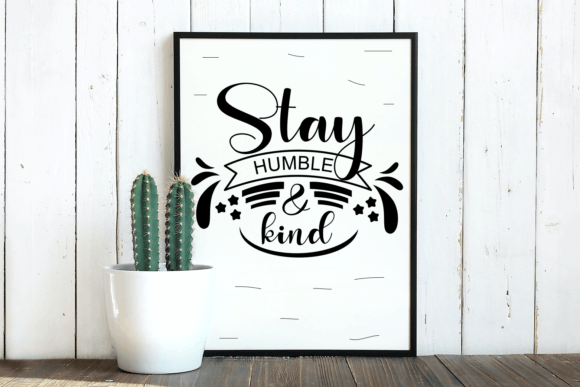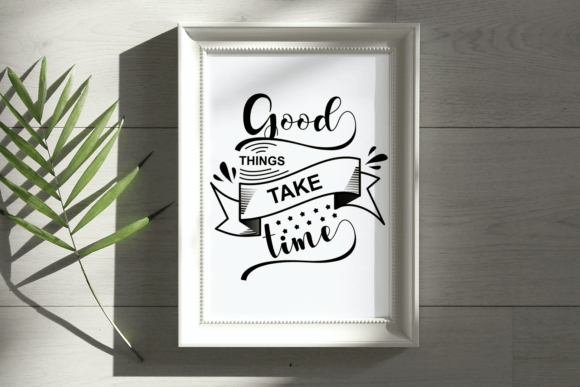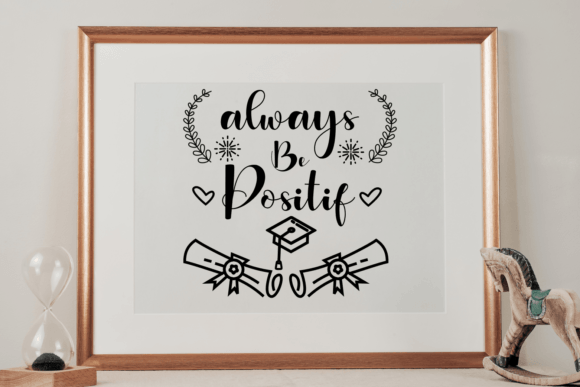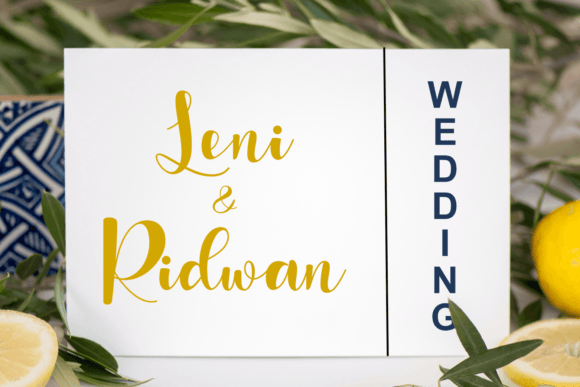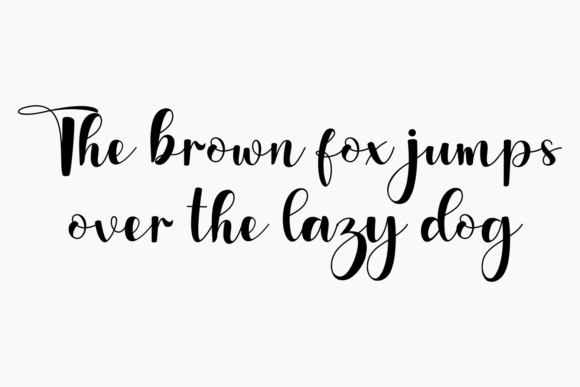
The Perfect Font to Celebrate Life’s Milestones
As a designer, there’s nothing quite like the thrill of bringing a project to life. You’ve poured your heart and soul into it, and it’s finally time to share it with the world. But what makes the difference between a good design and a great one? For us, it’s all about the little details – like the perfect font. That’s why we’re excited to introduce you to the Graduation Font, a beautiful and elegant calligraphy typeface that’s sure to add a touch of luxury to any design project.
With its romantic and sweet characters that dance along the baseline, the Graduation Font is the perfect choice for celebrating life’s milestones – from graduations to weddings and beyond. And with its PUA encoding, you’ll have access to all the amazing glyphs and ligatures or swashes you need to make your design truly special. Whether you’re a seasoned pro or just starting out, this font is sure to be a valuable addition to your toolkit.
Key Features of Graduation Font
- Font Family: Graduation is a script font family, designed to resemble handwritten text. It is available in multiple weights, from Light to Black.
- Size: Graduation Font has a large character set, with over 1,000 glyphs, including Latin, Cyrillic, and Greek alphabets, as well as punctuation and symbols.
- Unique Characteristics: Graduation Font features a unique, cursive design with subtle flourishes and connections between letters, giving it a distinctive and elegant look.
Graduation Font Review
Overall, I’d say the Graduation Font is a decent choice for celebratory occasions, but it has its limitations.
- It’s perfect for graduations, proms, and other milestone events.
- The font is easy to read, even at larger sizes.
- The cursive flair adds a touch of elegance and sophistication.
- The font is a bit too flashy and may not be suitable for more formal or professional applications.
- It may not be the best choice for body text, as it can be a bit too ornate and distracting.
- The font is not particularly versatile, and its uses are limited to celebratory occasions.
While the Graduation Font is not the most versatile or sophisticated font out there, it’s perfect for its intended purpose. If you’re looking for a font to celebrate a milestone event, the Graduation Font is a solid choice. Just be sure to use it in the right context and don’t overdo it.
Graduation Font: A Practical Application Guide
Tips for Getting the Most Out of Graduation Font
Use Graduation Font for celebratory and educational designs, such as graduation invitations, certificates, and diplomas.
Experiment with different font sizes and styles to create a visually appealing design.
Graduation Font is ideal for:
- Graduation invitations and announcements
- Certificates and diplomas
- Education and training materials
- Party and celebration designs
Alternatives to Graduation Font
Playfair Display is an elegant, luxurious serif font suitable for formal events, invitations, and high-end branding. It has a classic, vintage feel that is reminiscent of traditional calligraphy. When to use: Luxury events, high-end branding, and formal invitations.
Comparison to Graduation Font: Playfair Display has a more elegant and refined feel, while Graduation Font has a more playful and whimsical feel.
Didot is a classic, luxurious serif font that is perfect for formal events, high-end branding, and luxury packaging. It has a sleek, sophisticated feel that is reminiscent of high-end fashion and luxury goods. When to use: Luxury events, high-end branding, and luxury packaging.
Comparison to Graduation Font: Didot has a more classic and sophisticated feel, while Graduation Font has a more playful and whimsical feel.
Carolina
Carolina is a modern, elegant serif font that is perfect for formal events, invitations, and high-end branding. It has a clean, sophisticated feel that is reminiscent of traditional typography. When to use: Luxury events, high-end branding, and formal invitations.